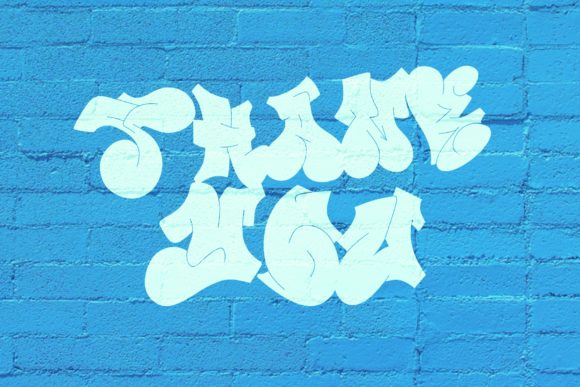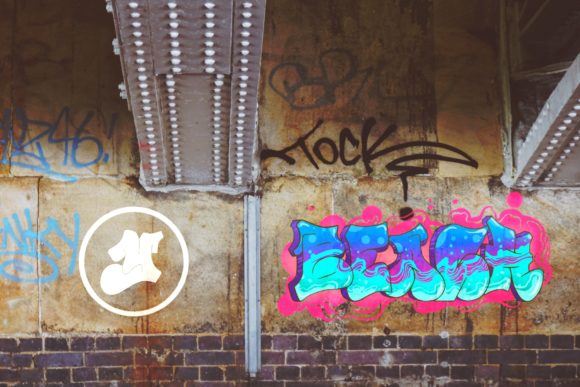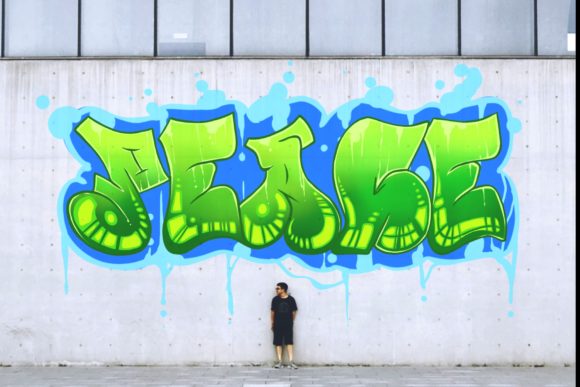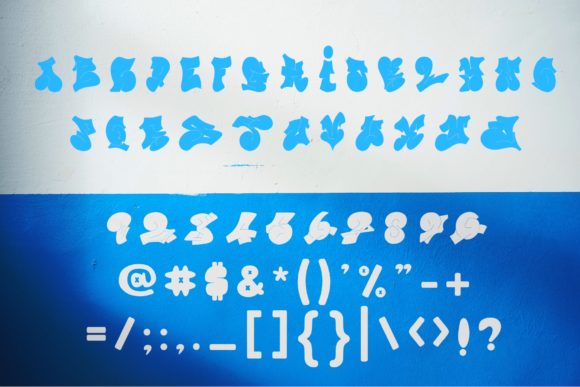
Introduction to Guetemole Font
Guetemole is a spectacular decorative font with a graffiti style.
It will elevate a wide range of design projects to the highest level, be it branding, headings, wedding designs, invitations, signatures, logotype, wallart illustration, apparel, labels, and much more .
Key Features of Guetemole Font
Why Choose Guetemole Font?
Guetemole Font offers exceptional quality and versatility, making it a valuable addition to your design toolkit. Whether you’re creating for personal projects or commercial use, Guetemole Font delivers professional results.